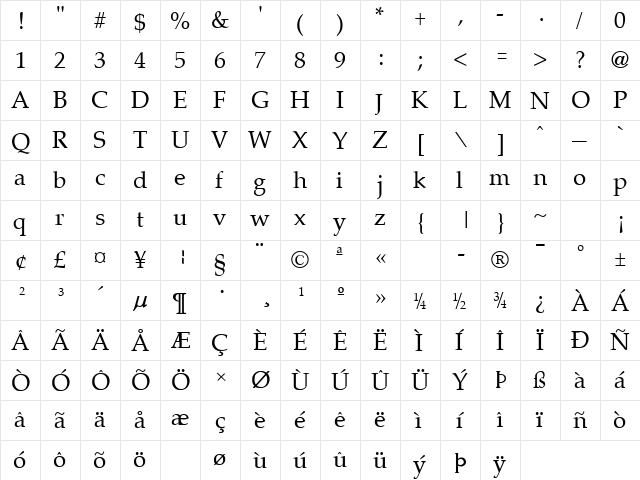
GE Palladian Regular
Design Context for GE Palladian Typeface
GE Palladian offers clean, dependable letterforms without strong stylistic allegiance, making it a practical choice for designers who need flexibility.